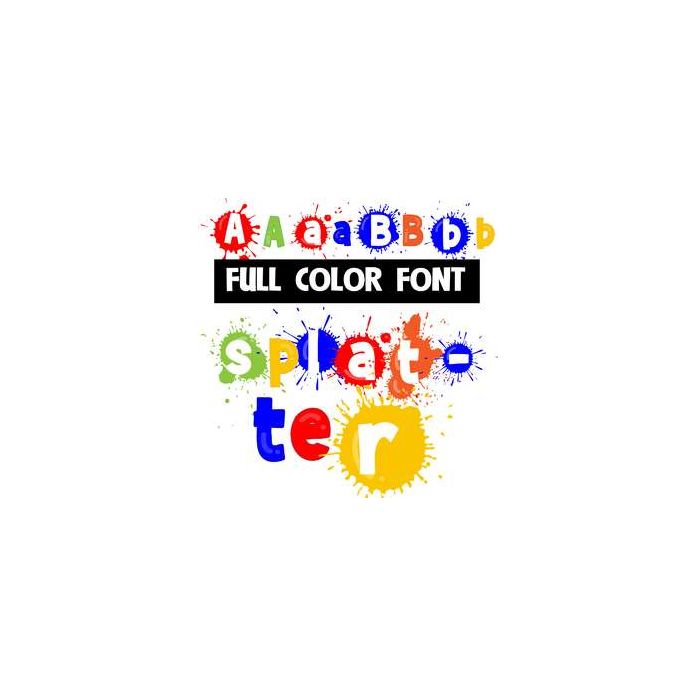
splatter color font
This full-color font looks like ink or paint splatters with white letters. There is an alt-case for each letter with a colorful, non-splatter version you can access through your system's character map. This font works best for titles, displays, posters and more. Please note color fonts will show as black in non compatible programs. This font type is compatible with Silhouette Studio.